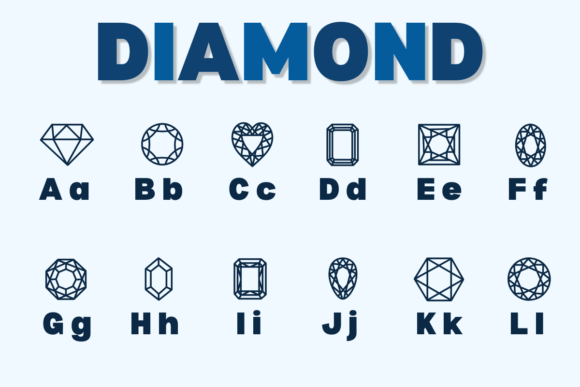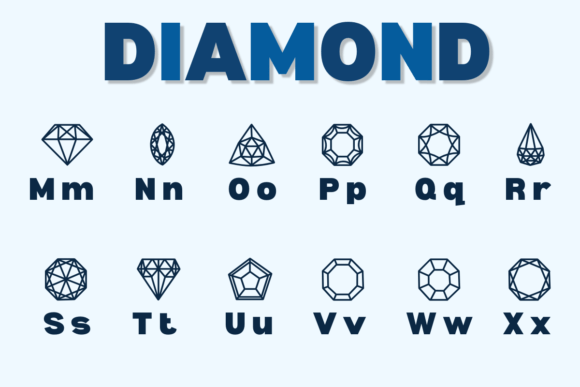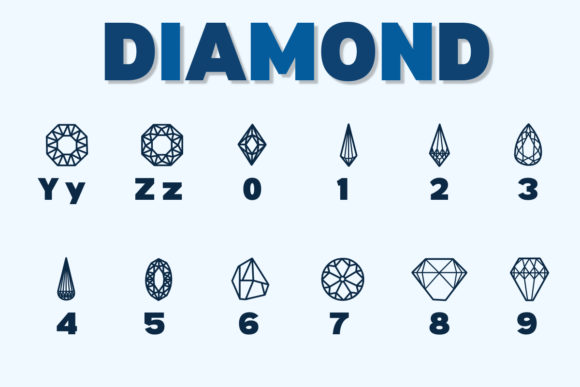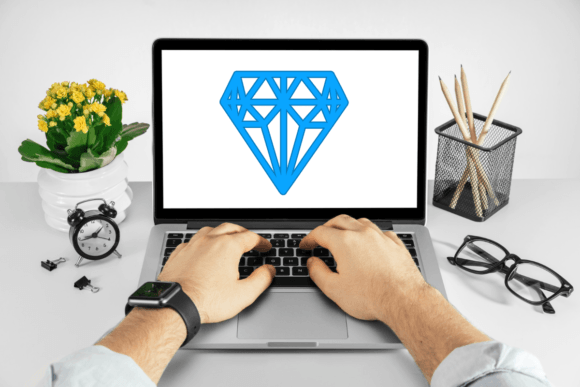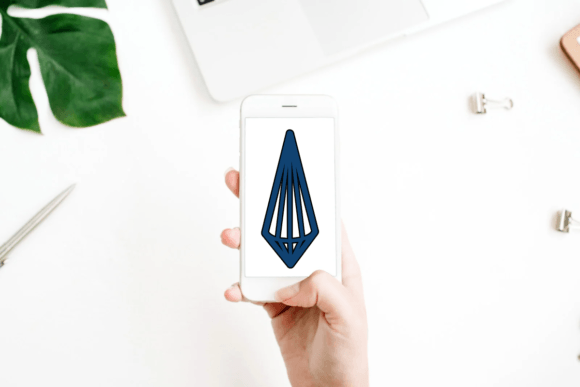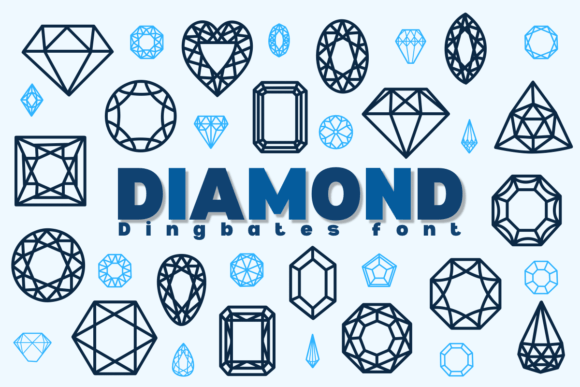
The Sparkle of Diamond Font: Elevating Creative Projects with a Fun Dingbats Font
I still remember the time I was working on a wedding invitation project, trying to find the perfect font to match the elegance and playfulness of the couple’s personalities. I had a vision of something fun, yet sophisticated, but my usual go-to fonts just weren’t cutting it. That’s when I stumbled upon the Diamond font, a delightful dingbats font that added a touch of magic to my design. In this article, I’ll share my experience with Diamond font, its features, and how to make the most of it in your creative projects.
An Honest Review of Diamond Font
Here’s what I love about Diamond font:
- ✨ Unique and fun design that’s perfect for creative projects
- ✅ Easy to read and versatile for various design applications
- 💎 Sparkling and eye-catching, adding a touch of luxury to your designs
However, I did notice a few quirks:
- 🤔 Limited character set, which might not be suitable for lengthy text
- ⚠️ Some glyphs may not work seamlessly with all design software
- Experiment with the font’s OpenType features, such as glyphs and stylistic alternates, to add visual interest to your design.
The Backstory of Diamond Font
Diamond font was designed with the intention of creating a fun and playful dingbats font that would add a touch of luxury to creative projects. The designer aimed to craft a font that would be versatile and easy to use, while still standing out from the crowd. Although the designer’s identity remains a mystery, their inspiration was clearly drawn from the world of jewelry and precious stones.
| Font Name | Diamond Font |
| Author | Chonada |
| What is Diamond font best used for? | Diamond font is perfect for creative projects such as wedding invitations, DIY crafts, decorations, logos, and more. |
| Is Diamond font suitable for lengthy text? | While Diamond font is beautiful, it may not be the best choice for lengthy text due to its limited character set and dingbats design. |